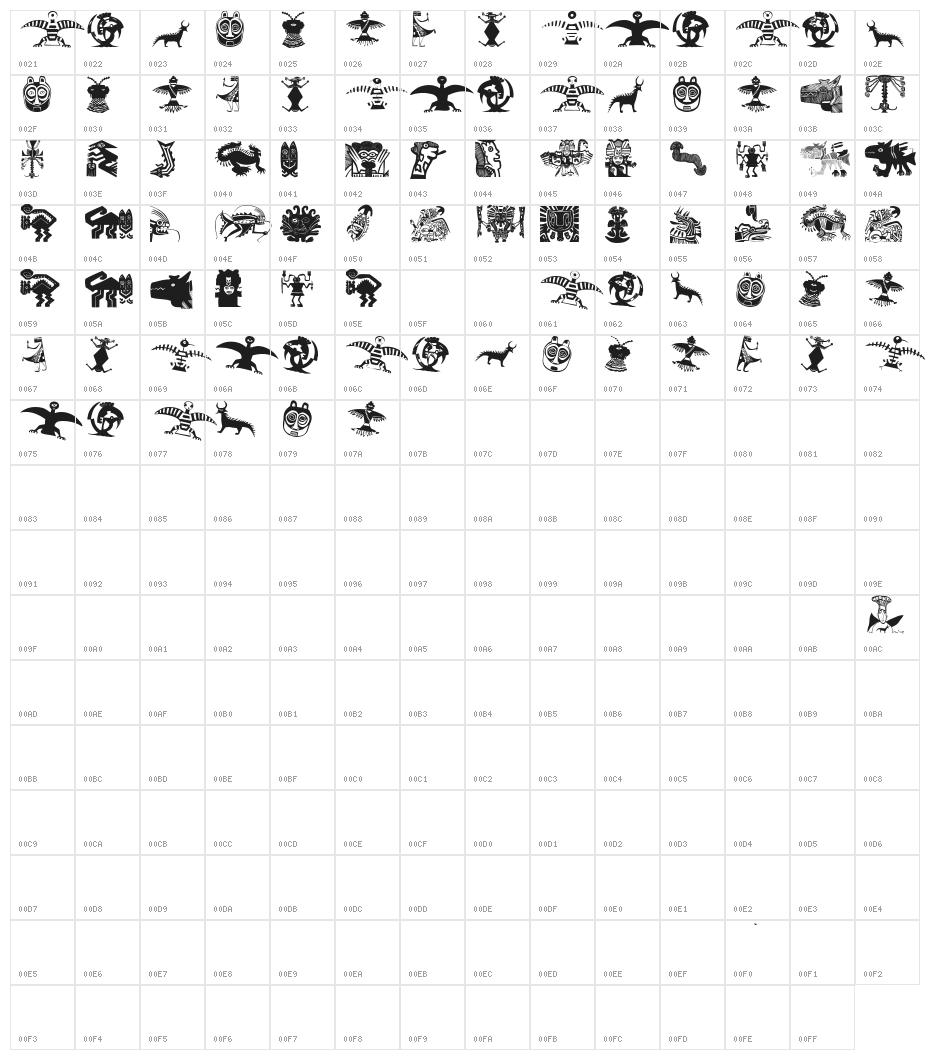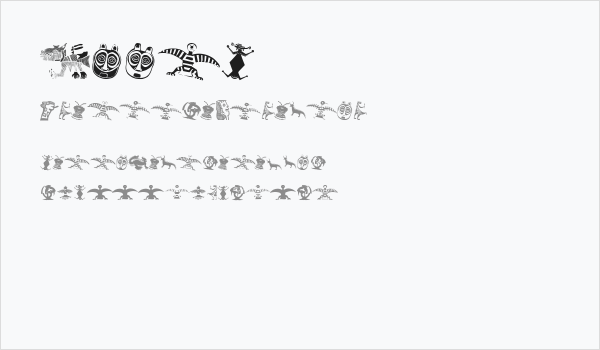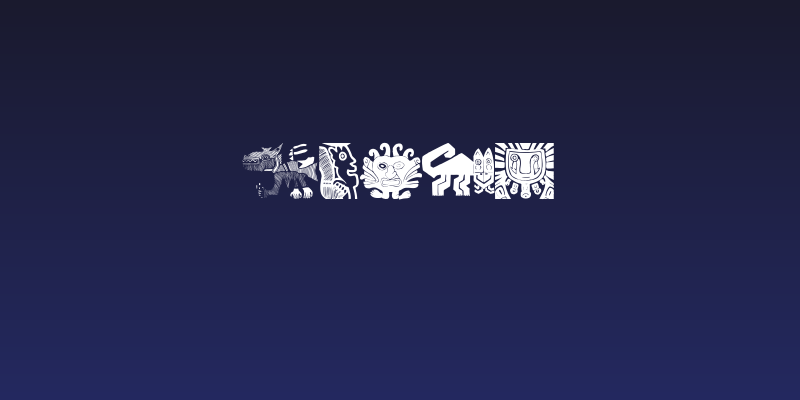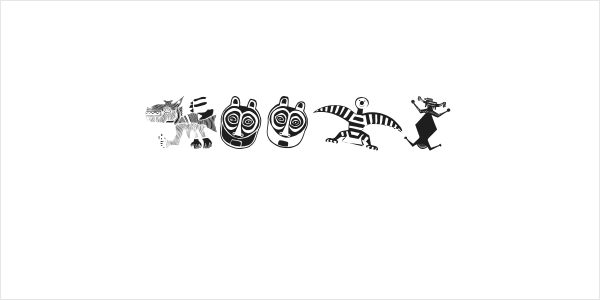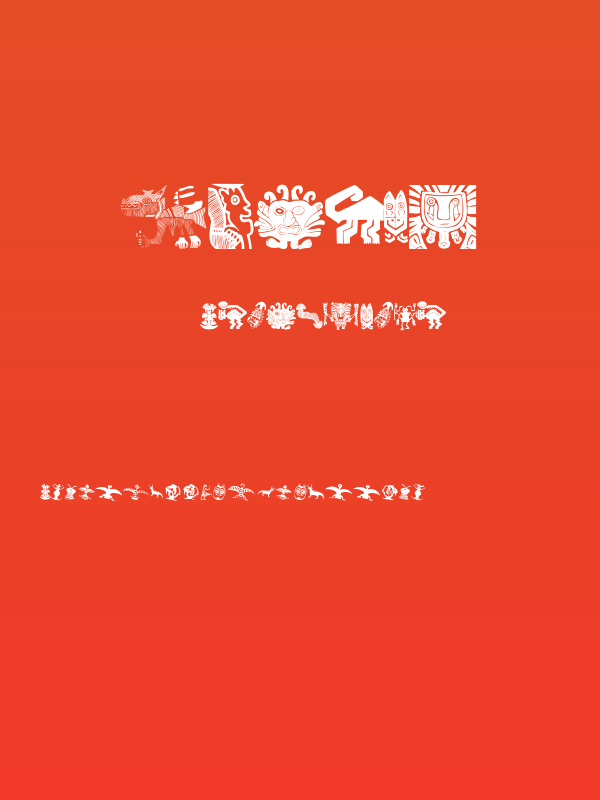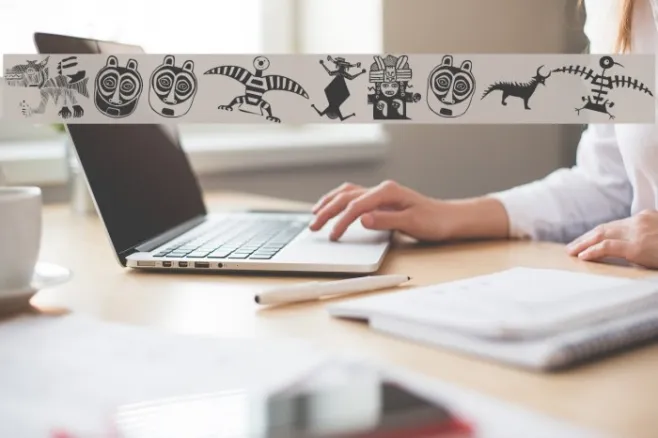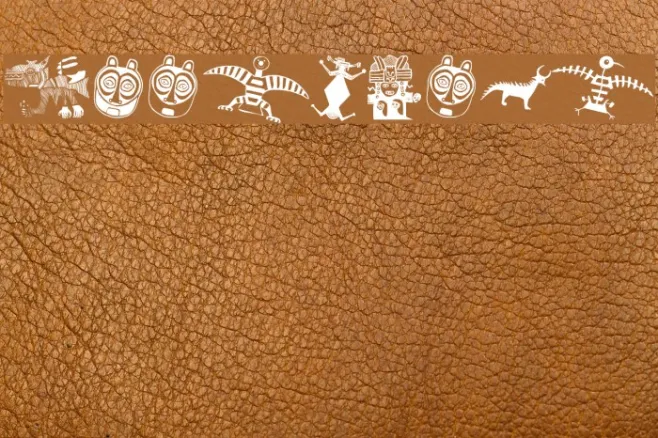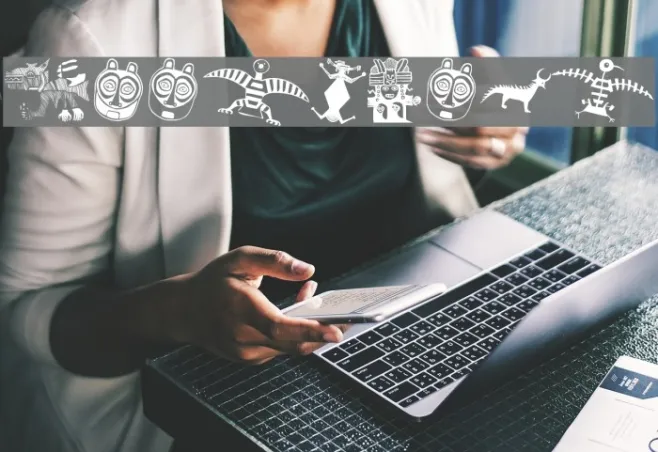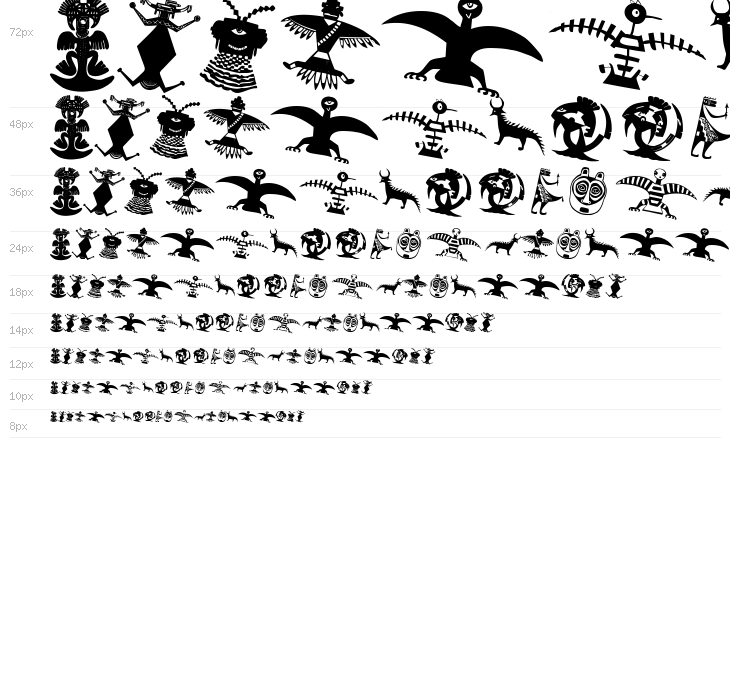
Idols Font
Idols Description
This font is a highly decorative and artistic collection of symbols and characters, each resembling intricate tribal or indigenous art forms. The characters are not traditional alphanumeric symbols but rather a series of unique, stylized figures that evoke a sense of ancient mythology and cultural storytelling. Each symbol is detailed, with bold lines and complex patterns, creating a visually striking appearance. The font's design is reminiscent of ancient carvings or petroglyphs, offering a sense of historical depth and cultural richness. The characters are evenly spaced, maintaining a consistent visual flow across the set.
| Use Case | Logos, Artistic projects, Cultural themes |
| Proposed Projects | Ideal for projects requiring a cultural or historical theme, such as museum exhibits, educational materials on ancient civilizations, or artistic posters. It can also be used in branding for cultural events or products that emphasize heritage and traditio |